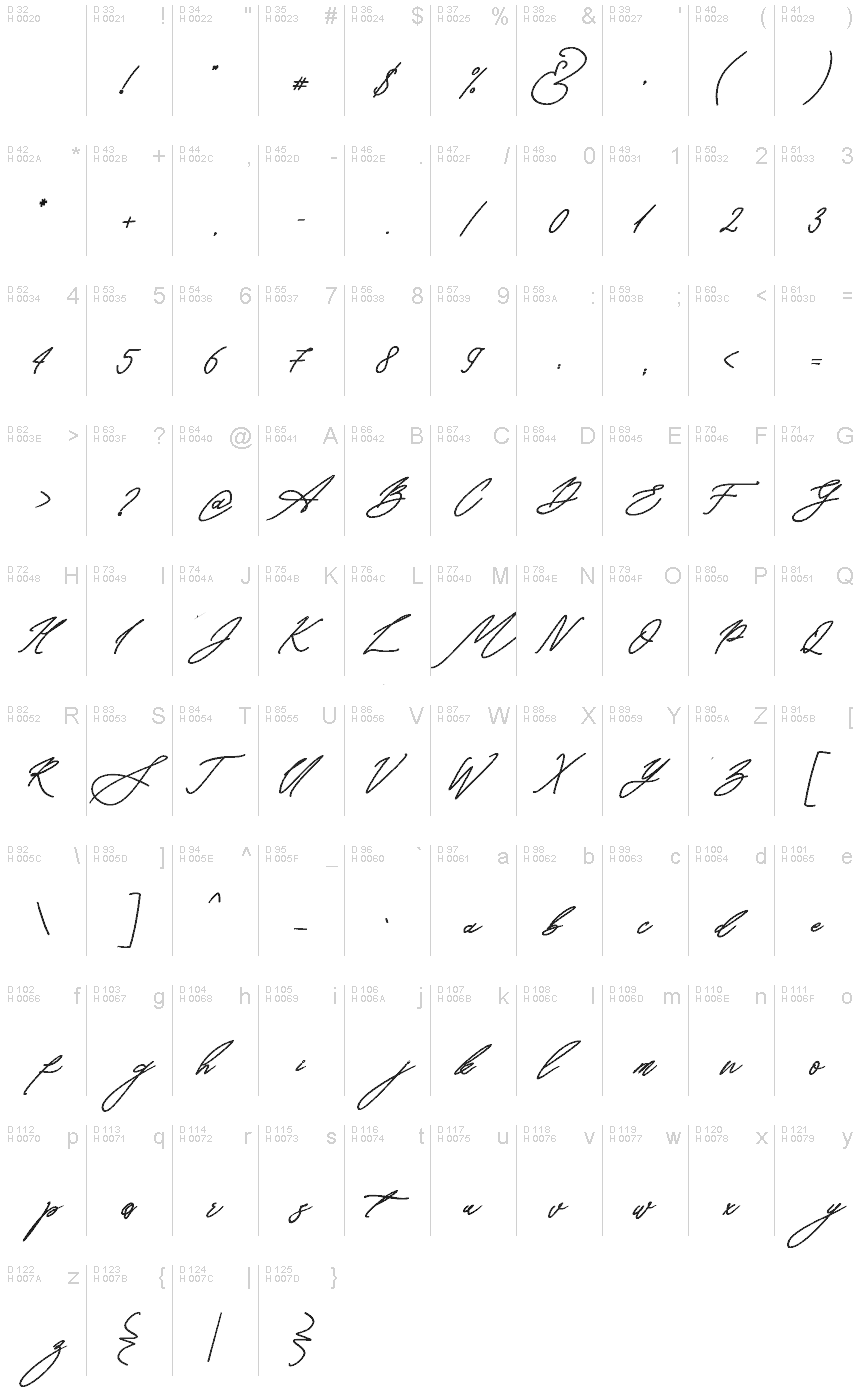
Seoul script Bold Italic
Seoul Script Font is a beautiful handwritten font with a natural and elegant look. It can be used in a wide range of design projects and is easy to use.
This font has updated kerning.